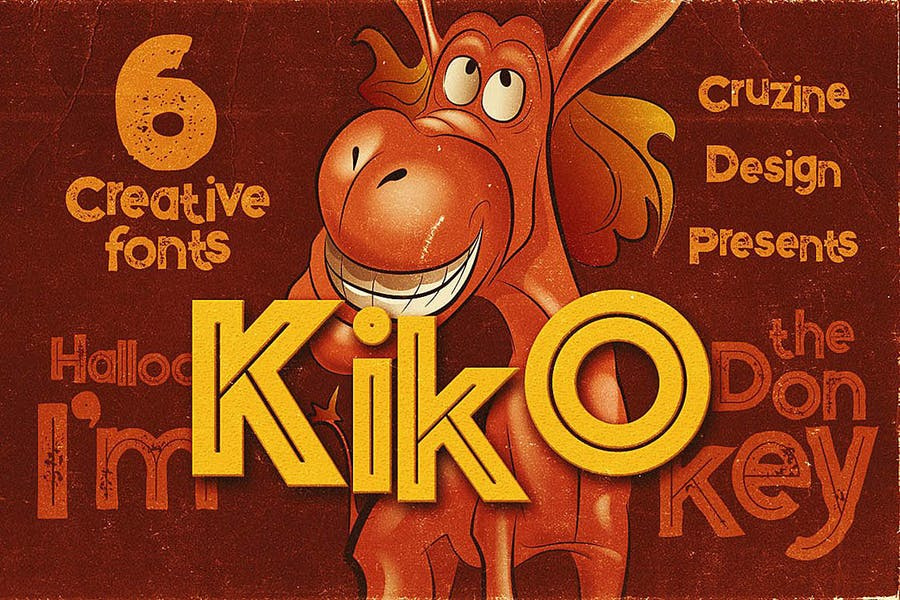
Kiko - Funny Display Font
Kiko - Funny Display Font is perfect for children's book titles, playful toy packaging, fun party invitations, cheerful candy branding, cartoon character designs, entertaining app interfaces, joyful social media graphics, whimsical café signage, amusing comic book lettering, and lighthearted marketing campaigns.
Kiko - Funny Display Font creates excitement because it embodies pure joy and infectious humor with its bouncy, animated letterforms and delightfully quirky character design. The font's playful energy and comedic personality instantly bring smiles and laughter, making any brand appear fun-loving and approachable. Its carefully crafted whimsical details and animated character create an immediate sense of happiness that captivates audiences seeking entertainment, joy, and products that celebrate the wonderful power of laughter and childlike wonder in everyday life.
The Kiko - Funny Display Font family includes multiple weights and styles: Regular, Bold, Light, Bouncy, Italic, Condensed, Extended, Wobble, Outline, and Cartoon versions. Each variant maintains the font's signature funny character while offering different levels of playfulness and comedic styling suitable for various entertainment and children-focused applications.
This delightful typeface brings authentic humor and childlike joy into modern entertainment design with remarkable personality and infectious charm. Kiko - Funny Display Font Free Download provides entertainment brands and creative professionals with access to premium comedy typography that captures the essence of pure fun and genuine laughter. The font's hilarious appearance and entertaining quality make it ideal for businesses seeking to create memorable experiences that bring joy and laughter to children and adults alike. Whether you're developing branding for children's entertainment companies, creating promotional materials for family attractions, designing packaging for fun products, or producing content for comedy and entertainment venues, this font delivers the joyful atmosphere that resonates with audiences seeking genuine happiness, laughter, and entertaining experiences. Its versatile comedic design ensures outstanding performance across both vibrant printed materials and animated digital applications while maintaining the spontaneous humor of genuine comedy. The font excels in applications requiring immediate emotional connection and entertainment value. Entertainment professionals appreciate its ability to convey pure fun while remaining highly readable for various promotional materials and interactive displays. The comprehensive character set includes playful symbols and international language support, making it perfect for global entertainment brands and international family attractions seeking to communicate authentic humor, joyful entertainment, and genuine comedy spirit to diverse worldwide audiences who cherish laughter, celebrate playfulness, and embrace the universal language of humor that brings people together across cultures and generations in shared moments of pure joy and delightful entertainment.